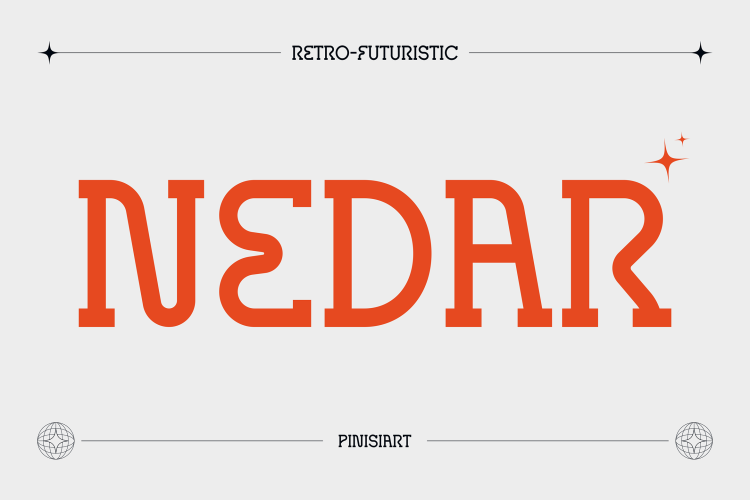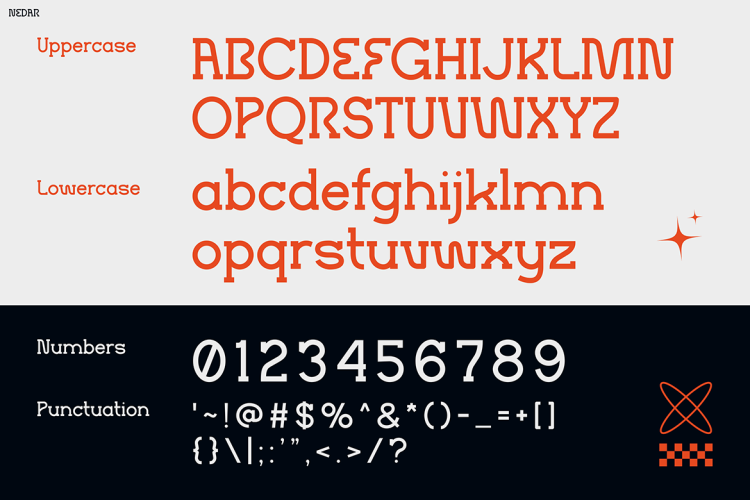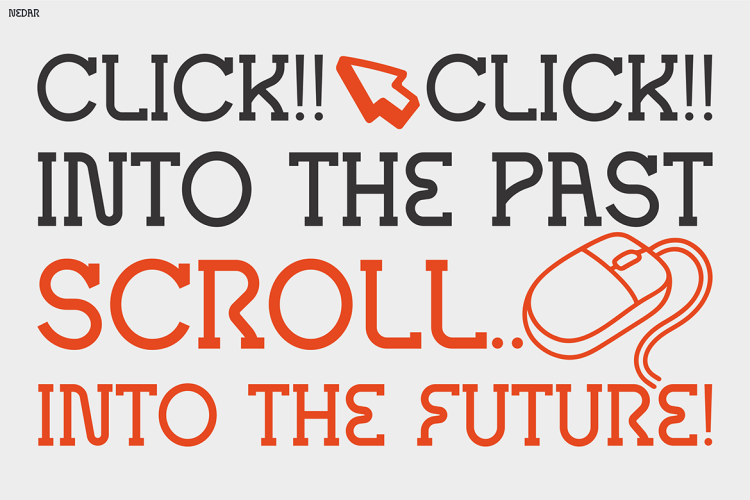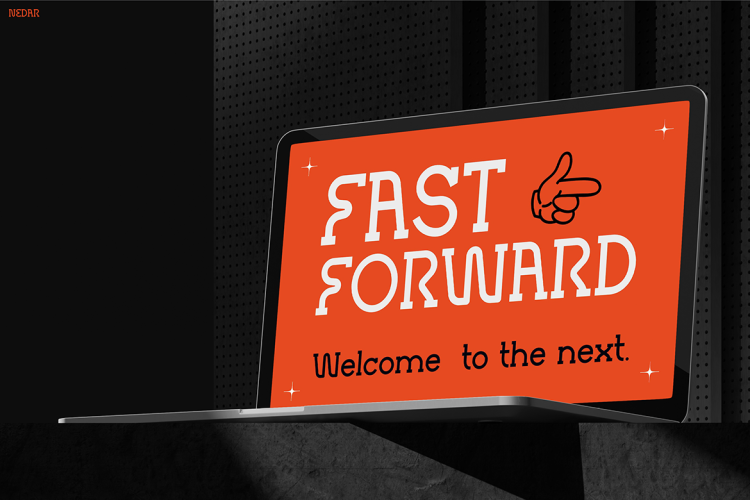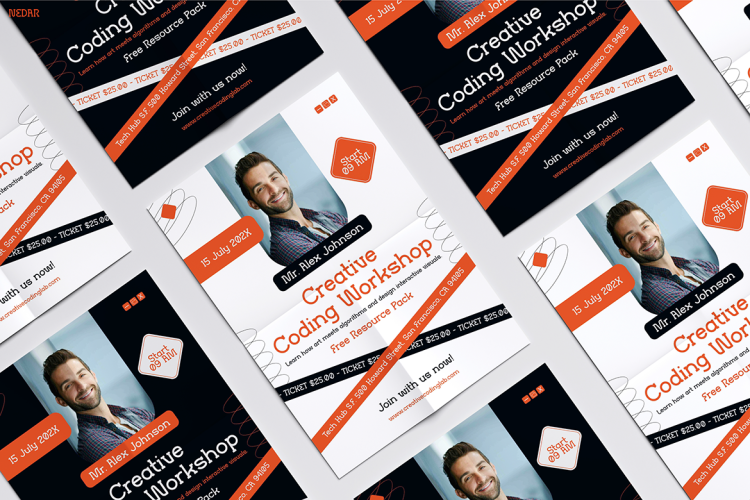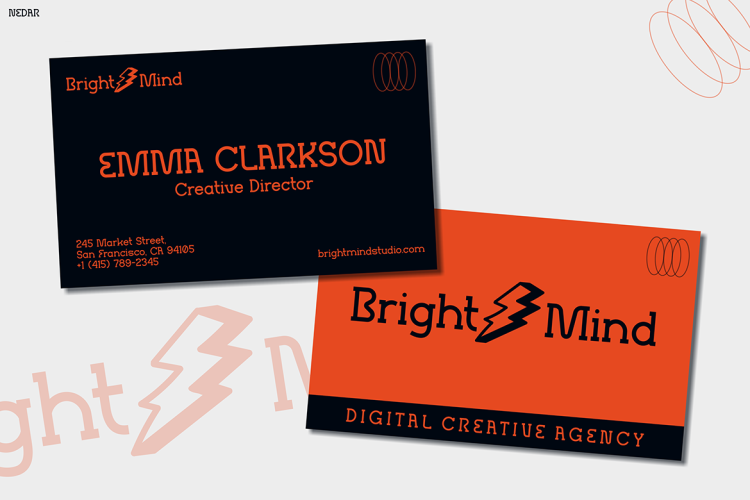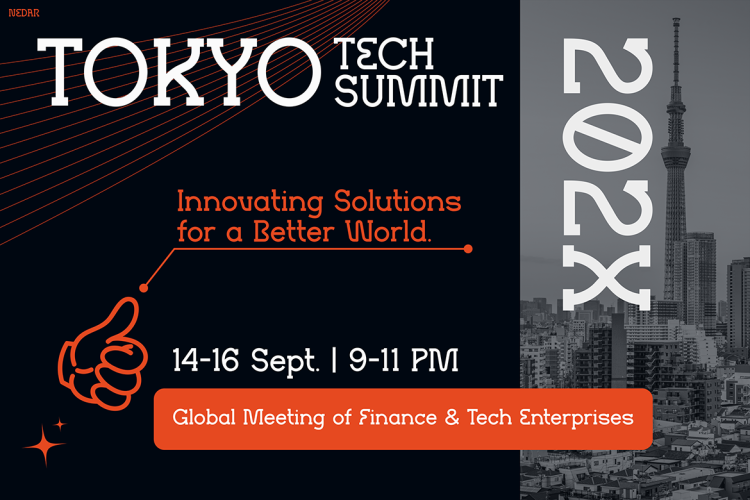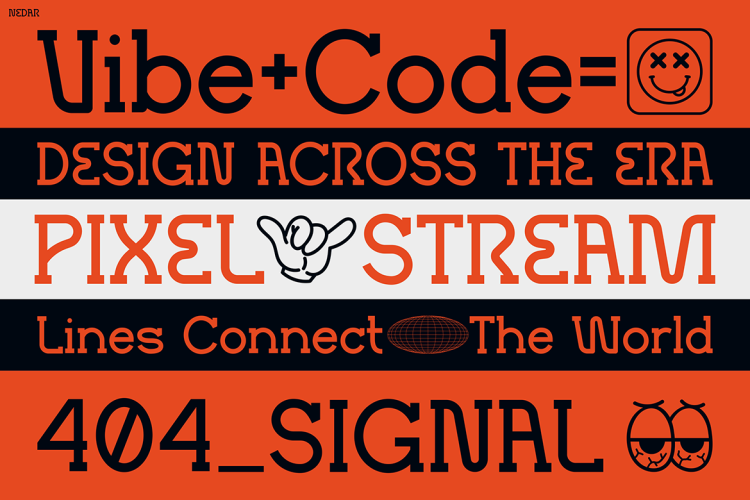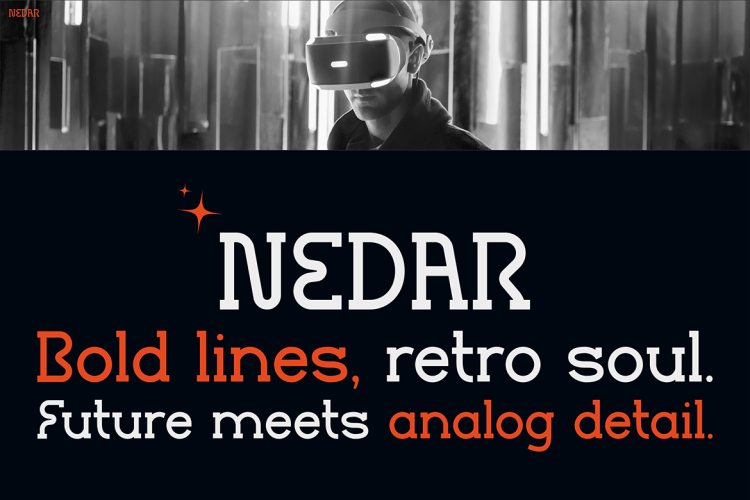
Instagram Font NEDAR
Instagram Font NEDAR brings a retro spirit while adding futuristic precision. Its bold strokes and smooth balance create a font that feels timeless. Moreover, every letter shows unique character, blending analog charm with digital clarity. Therefore, the font works for designers who want something both stylish and professional.
This typeface is highly versatile and adaptable. It looks striking on posters, strong on logos, and fresh on packaging. In addition, it transforms Instagram posts into content that truly stands out. For example, bold captions or promotional graphics gain more attention with NEDARโs clean lines. As a result, audiences engage more and remember your message longer.
Who is it for?
Instagram Font NEDAR is perfect for many creative professionals. Graphic designers can use it to build logos that appear both strong and modern. In addition, social media managers will appreciate its ability to attract audiences quickly. Agencies can also use it for campaigns that must connect with younger, trend-driven markets.
Event organizers will find it excellent for banners, tickets, and stage visuals. Moreover, startups can adopt it to express innovation and trust in equal measure. Lifestyle brands, on the other hand, can rely on it to stay trendy yet authentic. Bloggers, educators, and personal brands can also benefit since NEDAR keeps content clear and stylish.
Besides that, NEDAR is also suitable for magazines, websites, and product packaging. Its balance of retro and modern makes it reliable across both print and digital formats. Therefore, it is more than a fontโit is a tool to build identity.
Final Thoughts
With Instagram Font NEDAR, your designs achieve both style and impact. Furthermore, its retro-modern mix ensures timeless appeal across industries. In addition, the font adapts easily from print to digital media.